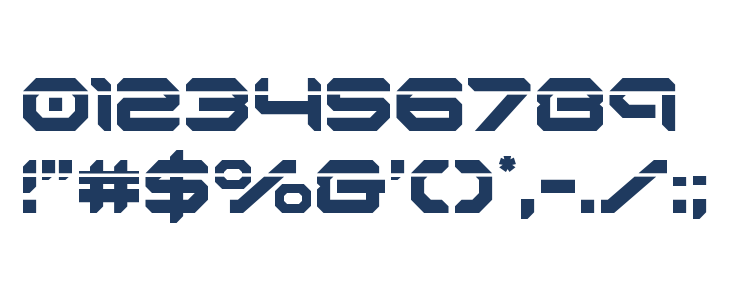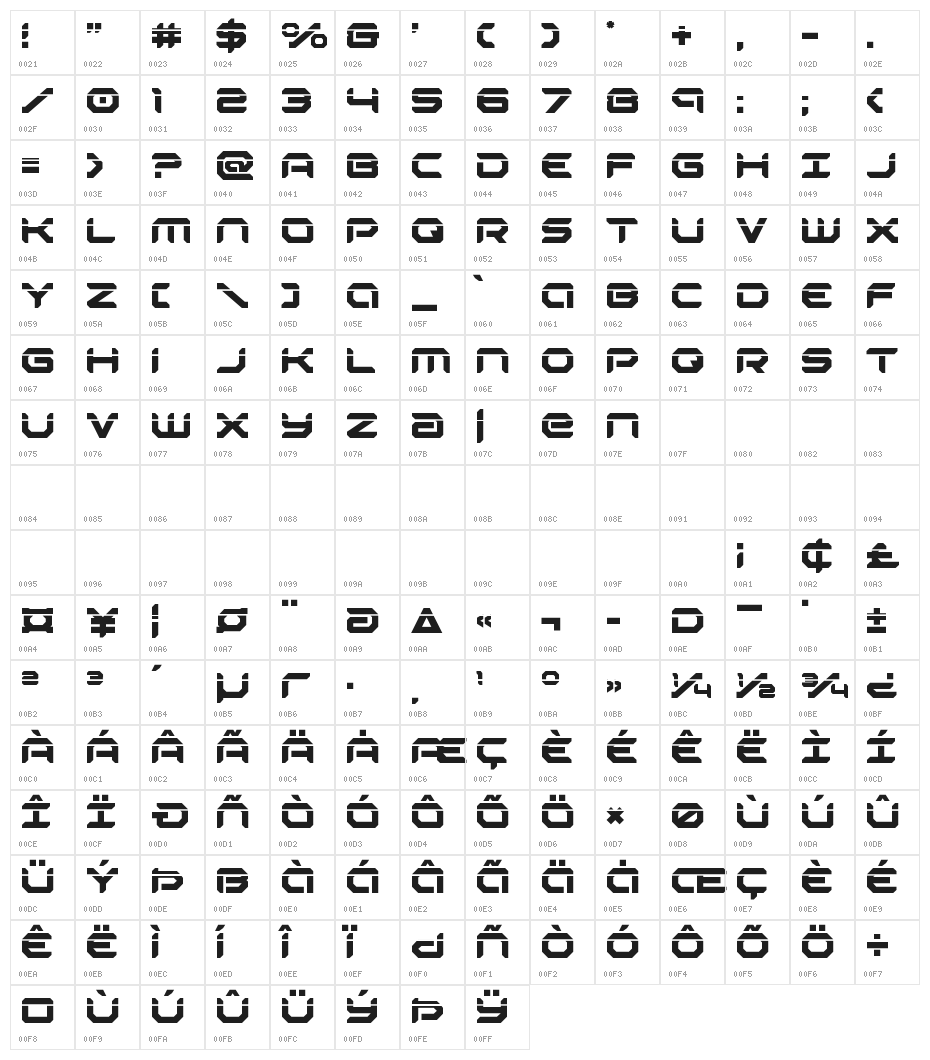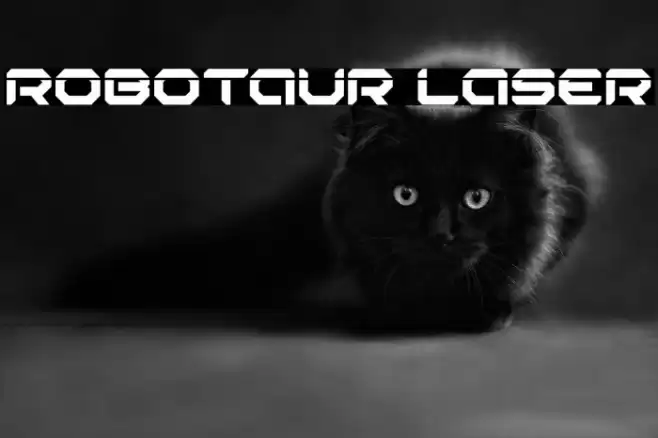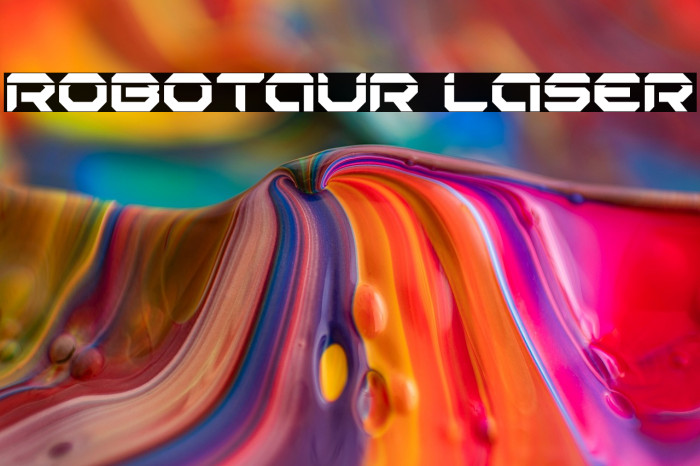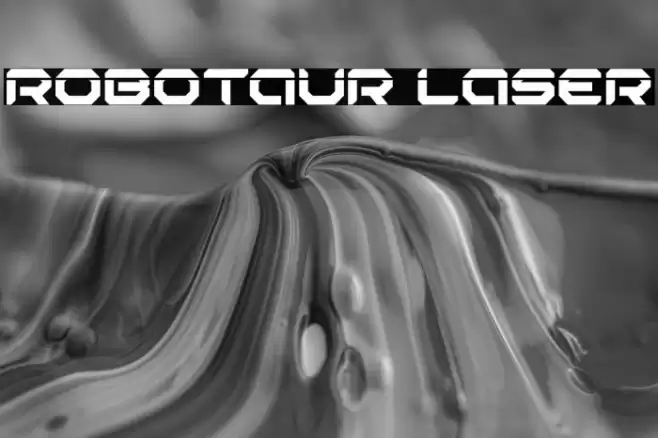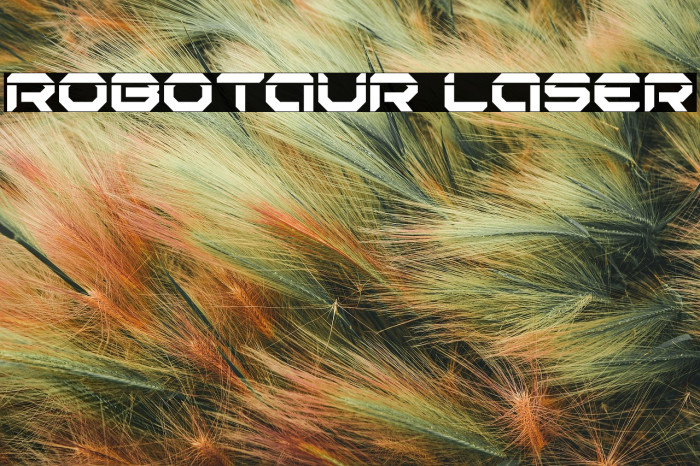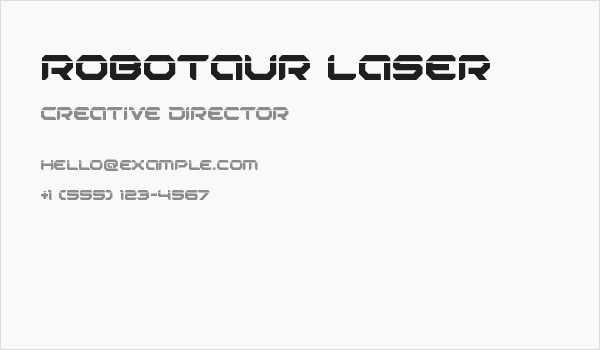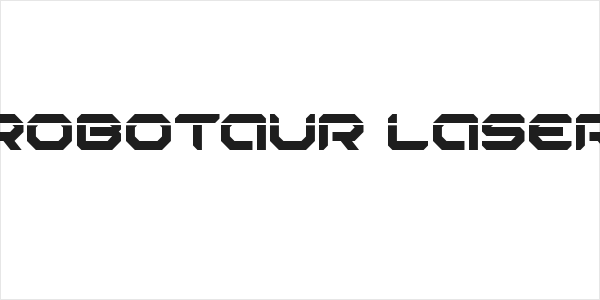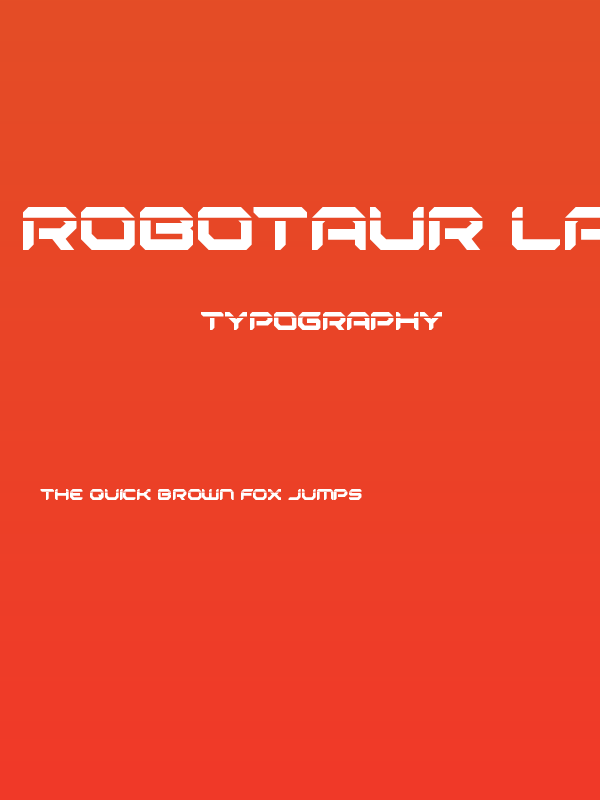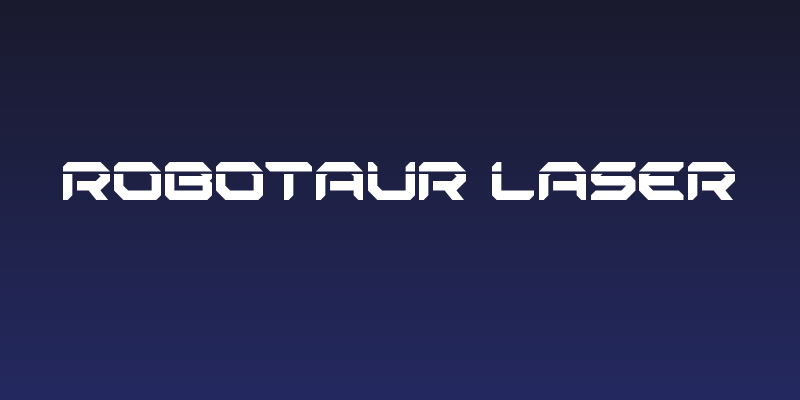
Robotaur Laser Font
Robotaur Laser Description
This font features a futuristic and angular design, characterized by sharp edges and geometric shapes. The letters are constructed with a bold, solid appearance, giving them a strong and impactful presence. The style is reminiscent of digital or robotic aesthetics, with a modern twist that makes it suitable for technology-themed projects. The characters are evenly spaced, ensuring readability while maintaining a unique visual appeal. The numbers and special characters follow the same design principles, creating a cohesive look across all elements.